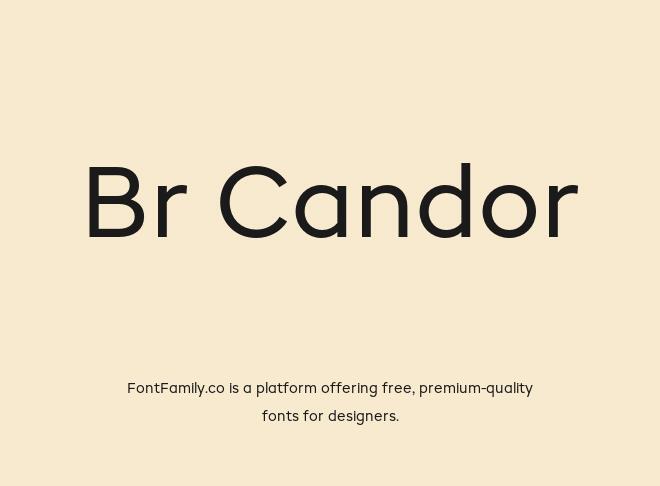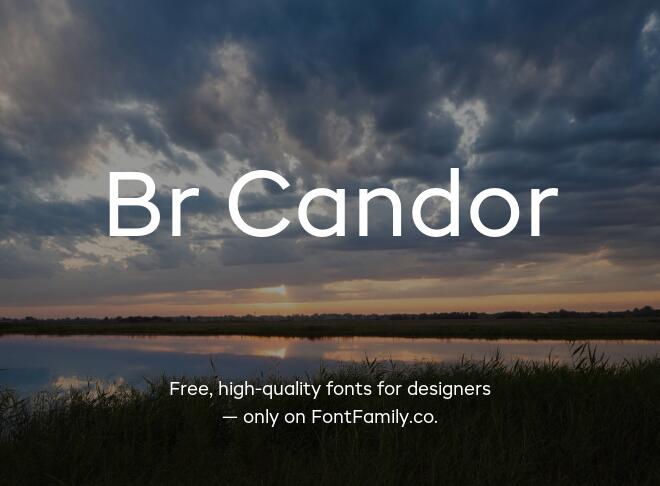
Br Candor Font
Br Candor Font is a modern and minimalistic typeface designed by Brendan Regan. Its clean, sans-serif characters deliver a contemporary feel, perfect for both print and digital designs. The font has a distinctive character set that makes it ideal for logo design, branding, website headers, and more. Its minimalistic design makes it highly legible, even at smaller sizes, ensuring a clear communication of your message. Compared to other fonts, Br Candor offers a unique blend of simplicity and sophistication, making it a great choice for designers who want to add a modern touch to their projects. Its display capabilities make it a versatile font that stands out in a variety of design contexts, from advertising to editorial design. Download Br Candor Font today to add a modern and minimalistic touch to your design work.
Author | Brendan Regan |